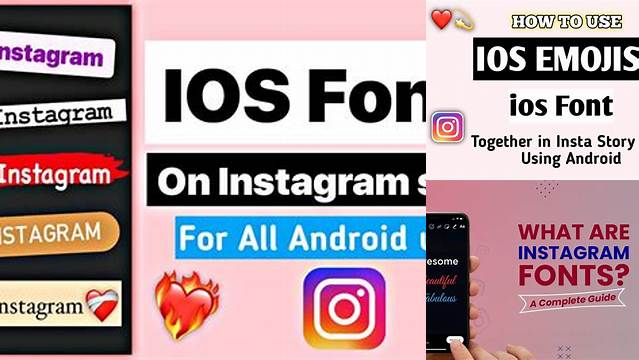
Get IOS Fonts On Instagram: A Complete Guide
Hey guys, ever wondered how to spice up your Instagram game with those cool iOS fonts? You know, the ones that give your stories and posts that extra oomph? Well, you're in the right place! We're diving deep into how you can snag those sweet iOS fonts and use them on Instagram, making your content pop and stand out from the crowd. It's all about getting creative and adding a personal touch, right? And what better way to do that than with some fancy fonts? Trust me, learning how to get iOS fonts on Instagram can seriously level up your profile. From stories to captions, these fonts can transform your content into something truly eye-catching. We'll cover everything from the basics to some pro tips that'll have you creating Instagram content like a seasoned pro. So, let's get started and make your Instagram feed a whole lot more stylish!
Why Use iOS Fonts on Instagram?
Okay, so why even bother with iOS fonts on Instagram? Well, the answer is simple: they look awesome! But it's more than just aesthetics. Using iOS fonts can make your content more engaging, memorable, and aligned with current design trends. Think about it: in a world saturated with content, standing out is crucial. By using unique fonts, you're instantly grabbing attention. These fonts can help you highlight important information, create visually appealing stories, and even reinforce your brand identity. Let's be honest, Instagram is a visual platform, and every detail matters. Using iOS fonts can give your posts a polished, professional look, making your content more shareable and attracting more followers. Plus, it’s a fun way to express your personality and show off your creativity. In short, leveraging iOS fonts is a strategic move that can elevate your Instagram presence and give you a creative edge. It's like giving your content a fresh coat of paint, making it more vibrant and attractive to your audience. Also, using different fonts is a great way to communicate your message more effectively. You can use specific fonts to convey different moods and tones, whether you want to be playful, serious, or sophisticated.
Benefits of Using Custom Fonts
- Enhanced Visual Appeal: Custom fonts make your content look more professional and unique.
- Improved Brand Identity: Consistent use of specific fonts helps create a recognizable brand image.
- Increased Engagement: Eye-catching fonts draw attention and encourage interaction.
- Better Storytelling: Fonts can enhance the mood and tone of your messages.
- Creative Expression: Experimenting with different fonts allows you to express your personal style.
Methods for Getting iOS Fonts on Instagram
Alright, let's get down to the nitty-gritty. How do you actually get those coveted iOS fonts onto your Instagram? There are a few different methods you can use, each with its own pros and cons. We'll break down the most popular and effective techniques so you can choose the one that works best for you. Don't worry, it's not as complicated as it sounds. We're talking about some workarounds that allow you to use the iOS fonts. Whether you're a tech whiz or a complete beginner, there's a method here that you can master. Let's explore how to get iOS fonts on Instagram and add a little flair to your posts.
Using Third-Party Font Apps
One of the easiest ways to get those iOS fonts on Instagram is by using third-party font apps. There are tons of apps out there, both on the App Store and Google Play, that let you generate text in a variety of fancy fonts. These apps are super user-friendly: you type in your text, select your font, and then copy and paste it into your Instagram bio, captions, or stories. These apps offer a wide selection of fonts, including those that mimic the iOS style. Some popular apps include: Fonts by Fonts.com, Cool Fonts, and Stylish Text. The key is to find an app that offers a good variety of fonts and is easy to use. Keep an eye out for apps that let you preview your text before copying it, so you can make sure it looks just right. Using these apps is a quick and effective way to add some personality to your Instagram. Plus, most of them are free or offer affordable premium options. Make sure you check the reviews to see if the app is reliable. Another important point is to respect the app's terms of use.
Step-by-Step Guide: Using Font Apps
Using Websites to Generate Fonts
If you're not into downloading apps, or if you prefer working on a computer, you can use websites that do the same thing: generate text in fancy fonts. These websites function much like the apps, but they're accessible through your web browser. This means you can use them on your computer, tablet, or phone without having to install anything. Simply go to the website, type your text, select a font, and copy and paste the formatted text into your Instagram. A great advantage is that you can try out different font combinations on the spot. Popular websites include: LingoJam, CoolSymbol, and Sprezzatura. Make sure to bookmark a few sites so you can easily access them whenever you need them. These websites are perfect for people who want a quick and easy solution. They also offer a wide array of fonts. Like with apps, remember to review the site's terms of use before using their services. The sites are also constantly updated, so you will always find some cool new fonts. Make sure you try multiple websites, just to check the best options. This way, you will find the right font in no time!
Step-by-Step Guide: Using Font Websites
- Open a Font Generator Website: Go to a website that generates fonts.
- Enter Your Text: Type the text you want to use.
- Select a Font: Browse the font options and select the one you like.
- Copy the Text: Copy the formatted text from the website.
- Paste into Instagram: Paste the text into your Instagram bio, caption, or story.
Using Unicode Characters
This method is a bit more advanced, but it's also very effective. Unicode characters include a variety of symbols and characters that can be used to create unique text styles. Websites and apps can generate text using these characters, making it look like you're using different fonts. This method has the advantage of not relying on specific font files, which means it's often more compatible across different devices. This approach can give you a wide variety of styles, from bold and italic to more decorative and artistic fonts. It requires a little more effort to find and choose the right characters, but the results can be well worth it. You can find plenty of online resources and tools that can help you with this process. If you're looking for maximum font flexibility, this is the way to go. Remember to double-check that the characters are displayed correctly on all devices. It's essential to check that the text renders properly on all types of devices, so your audience sees the same font you do. This ensures your message is clear and consistent.
Step-by-Step Guide: Using Unicode Characters
- Find a Unicode Font Generator: Search for a website or app that generates text with Unicode characters.
- Type Your Text: Enter your text into the generator.
- Choose Your Style: Select a style using Unicode characters.
- Copy the Text: Copy the generated text.
- Paste into Instagram: Paste the text into your bio, caption, or story.
Tips and Tricks for Using iOS Fonts on Instagram
Conclusion: Elevate Your Instagram Game
So there you have it! You've got the knowledge on how to get iOS fonts on Instagram. With the right tools and a bit of creativity, you can completely transform your Instagram profile and create content that truly stands out. Remember, it's all about experimenting, finding what works best for your brand, and having fun! Experiment with different font combinations and styles to find what best suits your content. Don't be afraid to try new things and see what resonates with your audience. Use these fonts to enhance your content, express your personal style, and connect with your audience on a deeper level. By learning how to get iOS fonts on Instagram, you've opened up a whole new world of creative possibilities. Get out there, start creating, and watch your Instagram profile flourish!